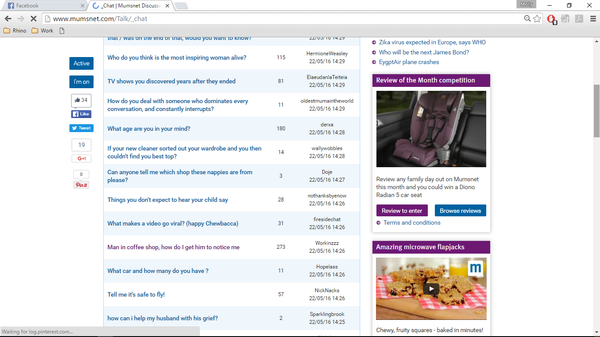
Big gaps, oversized font.
Why does everything look so gappy and chunky now? Is it meant to or is it my browser??
Hi Aramynta - we did change the font the other day, so yes, this is the new look.